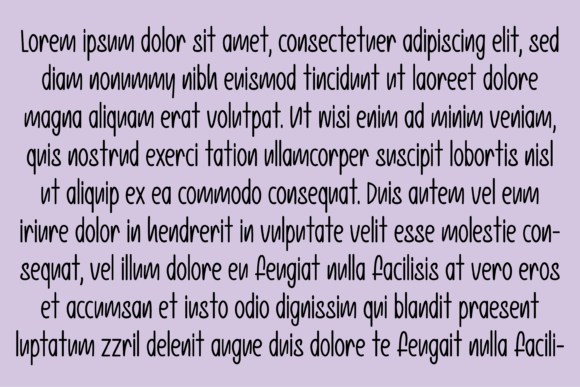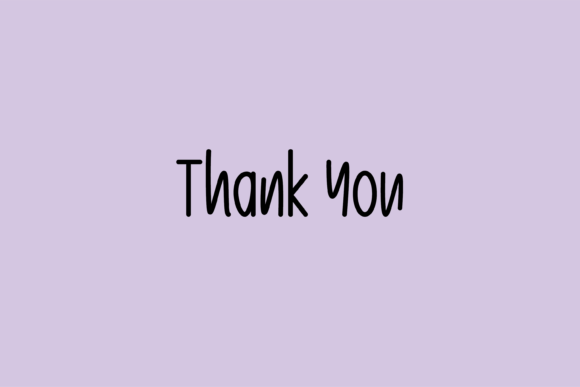
Introduction to Murad Font Font
Fonts play a crucial role in design, and the Murad Font font is a typeface that brings both character and versatility to any project. Whether you’re working on a branding project, a website, or a print design, the Murad Font font offers a unique style that can elevate your work.
Murad is a simple and friendly handwritten font.
Whimsical and a bit quirky, this font will brighten up your designs Add it confidently to your projects, and you will love the results.
Key Features of Murad Font Font
Why Choose Murad Font Font?
The Murad Font font is more than just a typeface – it’s a design tool that helps you communicate your message with style and clarity. Its unique character set and versatile design make it suitable for a wide range of applications, from elegant invitations to bold headlines.
With its carefully crafted letterforms and balanced proportions, the Murad Font font ensures readability and visual appeal across all mediums.
What makes Murad Font font special?
The Murad Font font stands out with its unique design, exceptional readability, and versatility across various design applications.